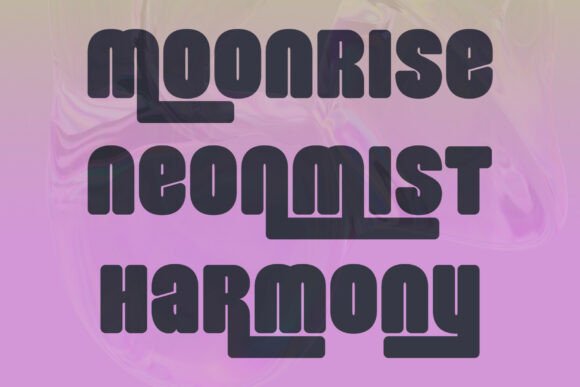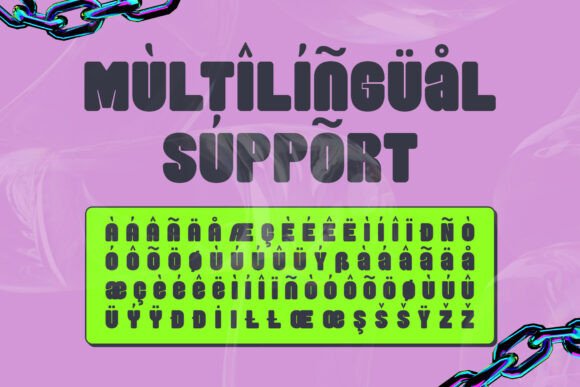
Luicy Regular Font
Luicy is a fresh and bold display sans serif font that blends retro-futuristic vibes with playful bubble-like shapes. With its thick rounded edges and eye-catching energy, it’s perfect for streetwear brands, Y2K aesthetics, party flyers, and music festival graphics. Make your designs pop with a font that screams personality and fun.